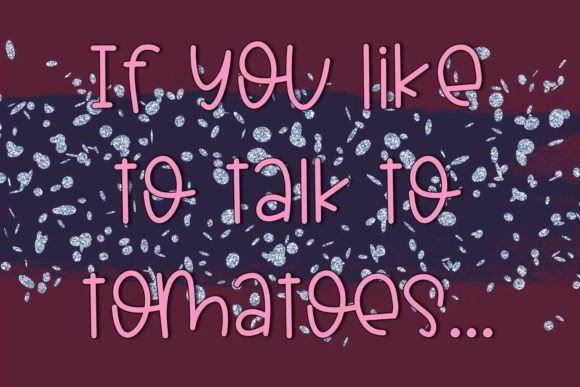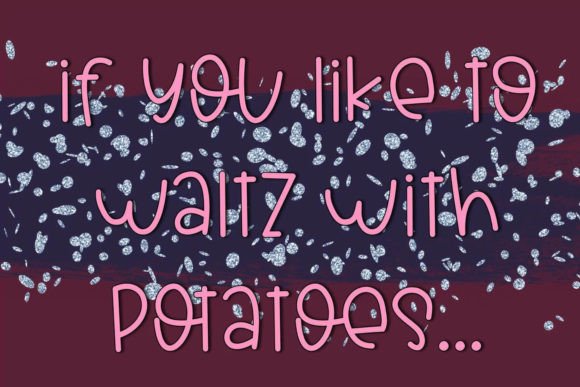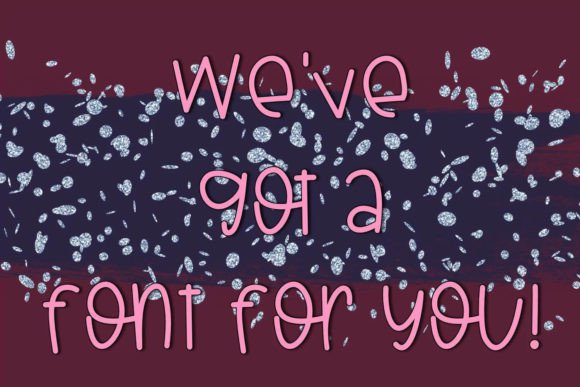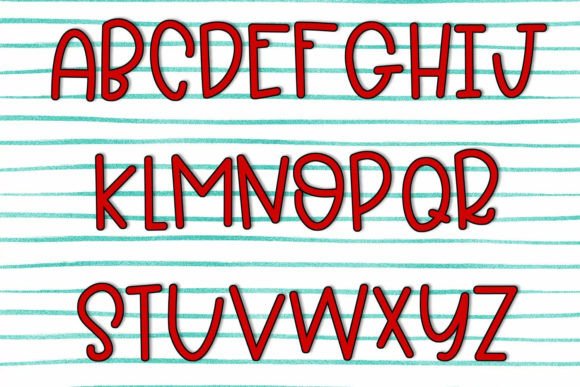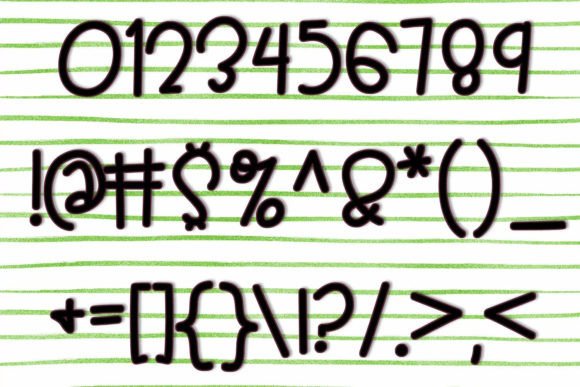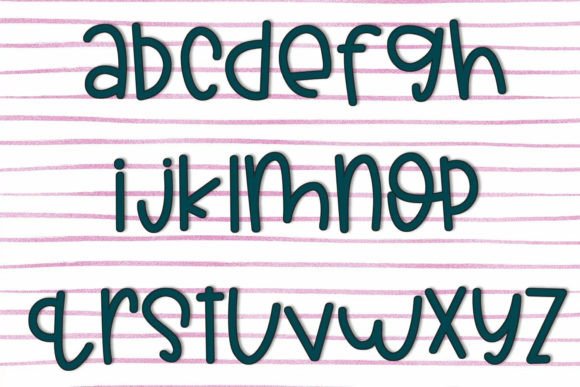
Potato Tomato Font
About Potato Tomato Font
“Introducing Potato Tomato, a playful and whimsical handwritten font that brings a touch of fun and flair to your projects. This quirky font is designed to add a unique and lighthearted vibe, making it a perfect choice for a variety of creative endeavors. Use Potato Tomato on your cut machine, as it comes with optimized nodes for precise cutting. Give Potato Tomato a try on your next project and infuse some whimsy into your designs!
Potato Tomato’s fun and whimsical style make it a standout choice for projects where you want to convey a sense of playfulness. Whether you’re creating invitations, DIY crafts, or personalized items, Potato Tomato adds a quirky flair that sets your designs apart.
The handwritten charm of Potato Tomato is complemented by its optimized nodes, making it ideal for use with cutting machines. This feature ensures clean and accurate cuts, allowing you to achieve professional-looking results on a variety of materials. Whether you’re working with vinyl, paper, or other mediums, Potato Tomato is ready to enhance your cutting projects.
Consider using Potato Tomato on a variety of projects, from signage and decals to DIY crafts and beyond. Its unique and lighthearted aesthetic makes it versatile for different design applications, adding a touch of whimsy to each creation.
In summary, Potato Tomato is not just a font; it’s a playful and quirky design tool with optimized nodes for cutting precision. Whether you’re a crafter or a designer, Potato Tomato is ready to bring a dose of fun to your projects. Try it on your next creative endeavor and let Potato Tomato add that whimsical touch you’ve been looking for!”